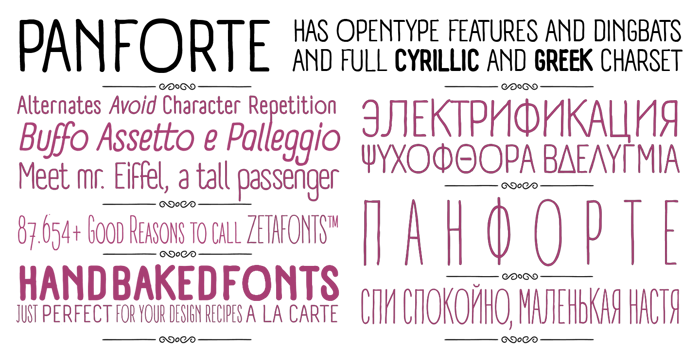
Panforte Font
Panforte was developed by Debora Manetti as part of her personal research work in hand drawn characters with a vernacular look and feel that can work properly as text fonts at small point sizes and on the web. Hand drawn in easy big strokes, its a very condensed typeface that allows you to typeset easily long texts. Lovers of world cuisine will be delighted to discover that it supports over forty languages using the latin alphabet, spiced with hand-picked diacritics and comes also with a tasty side dish of greek and cyrillic characters.Its grungy, handmade characteristics are visible at medium and high point sizes but do not impact the effect of the font when set in text.
Panforte Pro is a open type redesign of the original typeface by Cosimo Lorenzo Pancini and Francesco Canovaro that features small case characters, oldstyle numerals and a series of ligatures that help keeping the distinctive handmade look (they can be switched off by unchecking the “standard ligatures” option in your design software).
All versions of Panforte include some ligature dingbats, accessible by typing the corresponding sequence of characters. For commercial uses you must get a license at: